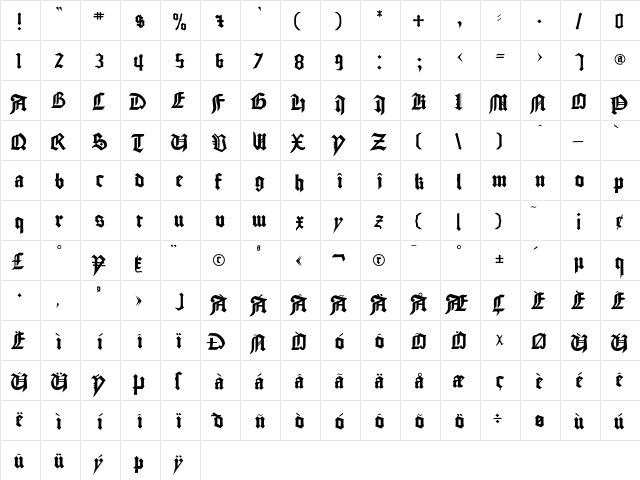
GoodCityModern Regular Font Preview
GoodCityModern Regular
GoodCityModern Regular Font Details
Design Context for GoodCityModern Typeface
GoodCityModern is a composed and adaptable typeface that performs quietly and consistently across a wide range of design contexts.